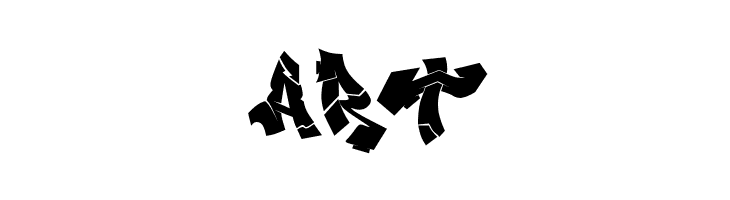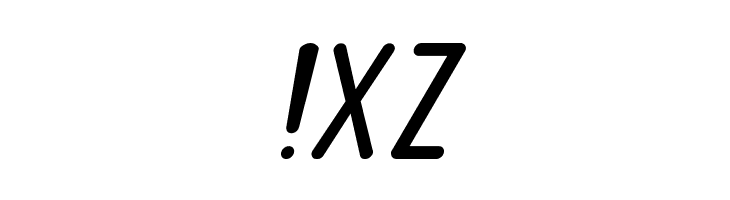
A bold, angular font with a dynamic, sporty aesthetic.
A bold, playful font with rounded, thick strokes and a friendly appearance.
A playful, rounded font with whimsical curves and bold strokes.
A dynamic cursive font with elegant, sweeping strokes and modern calligraphic style.
A bold, graffiti-inspired font with sharp, angular edges and an urban feel.
A playful, handwritten-style font with a lively and informal appearance.
A playful, handwritten-style font with smooth, rounded strokes.